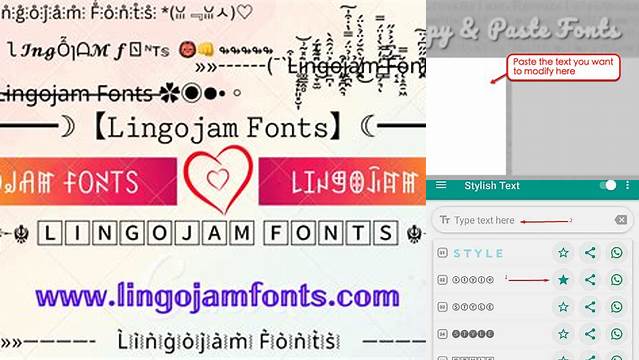
WhatsApp Fonts: Copy & Paste With LingoJam
Are you looking to spice up your WhatsApp messages with unique fonts? LingoJam offers a simple way to generate stylish text that you can easily copy and paste into your conversations. In this article, we'll explore how to use LingoJam fonts for WhatsApp, providing you with a step-by-step guide to make your messages stand out. We'll cover everything from accessing LingoJam to copying and pasting fonts, ensuring you can effortlessly add flair to your chats. So, let's dive in and discover how to elevate your WhatsApp game with cool and creative text!
What is LingoJam?
LingoJam is a versatile online translator and font generator that allows users to create unique text styles for various platforms, including social media and messaging apps like WhatsApp. It's a user-friendly tool that requires no special software or technical skills, making it accessible to everyone. Whether you want to add a touch of elegance, fun, or creativity to your messages, LingoJam provides a wide range of font options to suit your needs. The platform's intuitive interface makes it easy to input your text and instantly generate a variety of stylish fonts. These fonts can then be easily copied and pasted into your WhatsApp chats, allowing you to express yourself in new and exciting ways. LingoJam stands out because it offers a seamless experience, enabling you to transform your ordinary text into eye-catching designs with just a few clicks. Beyond fonts, LingoJam also offers translation services, making it a handy tool for various language-related tasks. Overall, LingoJam is an excellent resource for anyone looking to enhance their digital communication with unique and stylish text.
How to Use LingoJam for WhatsApp
Using LingoJam to create unique fonts for your WhatsApp messages is a straightforward process. First, head over to the LingoJam website using your preferred web browser. Once you're on the site, you'll notice two text boxes: one for inputting your original text and another displaying the generated fonts. Simply type your message into the left text box, and LingoJam will automatically generate a variety of stylish fonts in the right text box. Scroll through the available options and choose the font that best suits your style and the message you want to convey. To copy the font, click on the desired text style in the right text box. This will copy the selected font to your clipboard. Next, open WhatsApp and navigate to the chat where you want to use the new font. In the text input area, simply paste the copied font. Your message will now appear in the unique font you selected from LingoJam. Send the message, and your contact will see the stylish text in their chat. This simple copy-and-paste method allows you to quickly and easily add personality to your WhatsApp conversations, making them more engaging and fun. Remember, while LingoJam provides a wide range of font options, the availability and appearance of these fonts may vary depending on the recipient's device and operating system.
Step-by-Step Guide to Copy and Paste LingoJam Fonts
Let's break down the process of copying and pasting LingoJam fonts into WhatsApp with a step-by-step guide:
- Visit LingoJam: Open your web browser and go to the LingoJam website.
- Enter Your Text: In the left text box, type the message you want to send on WhatsApp. This is the text that will be converted into different font styles.
- Browse Font Options: As you type, LingoJam will generate various font styles in the right text box. Scroll through the options to find a font that you like.
- Copy the Font: Once you've found the perfect font, click on it in the right text box. This will copy the font to your clipboard.
- Open WhatsApp: Launch WhatsApp on your phone or computer and open the chat where you want to send the message.
- Paste the Font: In the text input area, paste the copied font. You can usually do this by tapping and holding in the text box and then selecting "Paste," or by using the keyboard shortcut Ctrl+V (or Cmd+V on Mac).
- Send Your Message: After pasting the font, your message will appear in the selected style. Now, simply tap the send button to send your stylish message.
By following these steps, you can easily enhance your WhatsApp conversations with unique and creative fonts from LingoJam. This simple trick can add a personal touch to your messages and make them more engaging for your friends and family.
Tips for Using LingoJam Fonts on WhatsApp
To make the most out of using LingoJam fonts on WhatsApp, here are some helpful tips:
- Choose Readable Fonts: While LingoJam offers a wide variety of fonts, not all of them are easy to read. Select fonts that are clear and legible to ensure your message is easily understood by the recipient. Avoid overly decorative or complex fonts that can be difficult to decipher.
- Use Fonts Sparingly: While it's fun to experiment with different fonts, using too many different styles in a single conversation can be overwhelming. Use fonts sparingly to highlight important words or phrases, rather than changing the font for every message.
- Check Font Compatibility: Keep in mind that the appearance of LingoJam fonts may vary depending on the recipient's device and operating system. Some fonts may not display correctly on certain devices, so it's a good idea to test the font with a friend or family member to ensure it looks as intended.
- Combine Fonts with Emojis: Enhance your messages by combining LingoJam fonts with emojis. This can add extra personality and emotion to your text, making your messages more engaging and fun.
- Use for Special Occasions: Consider using LingoJam fonts for special occasions like birthdays, holidays, or anniversaries. A unique font can add a special touch to your greetings and make them more memorable.
- Save Your Favorite Fonts: If you find a font you particularly like, save it in a note or document for future use. This will save you time when you want to use the same font again.
- Be Mindful of Context: Choose fonts that are appropriate for the context of the conversation. A playful font might be suitable for casual chats with friends, while a more formal font might be better for professional communications.
By following these tips, you can effectively use LingoJam fonts to enhance your WhatsApp conversations and make them more engaging and visually appealing.
LingoJam provides a fun and easy way to enhance your WhatsApp conversations with unique and stylish fonts. By following the steps outlined in this guide, you can effortlessly copy and paste fonts into your messages, adding a personal touch to your chats. Remember to choose readable fonts, use them sparingly, and be mindful of font compatibility. With a little creativity, you can use LingoJam to make your WhatsApp messages stand out and engage your friends and family in new and exciting ways. So go ahead, give it a try, and start expressing yourself with cool and creative text today!